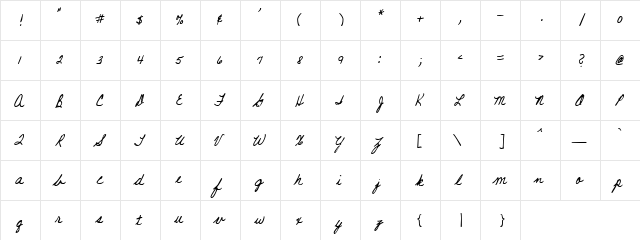
LD Script 2 Regular
LD Script 2 flows with the natural rhythm of handwritten lettering, making it ideal for designs that call for warmth and personal expression.
Font Pairing: Combine LD Script 2 with a simple geometric sans for maximum contrast — the tension between flowing curves and clean structure is a classic typographic pairing.